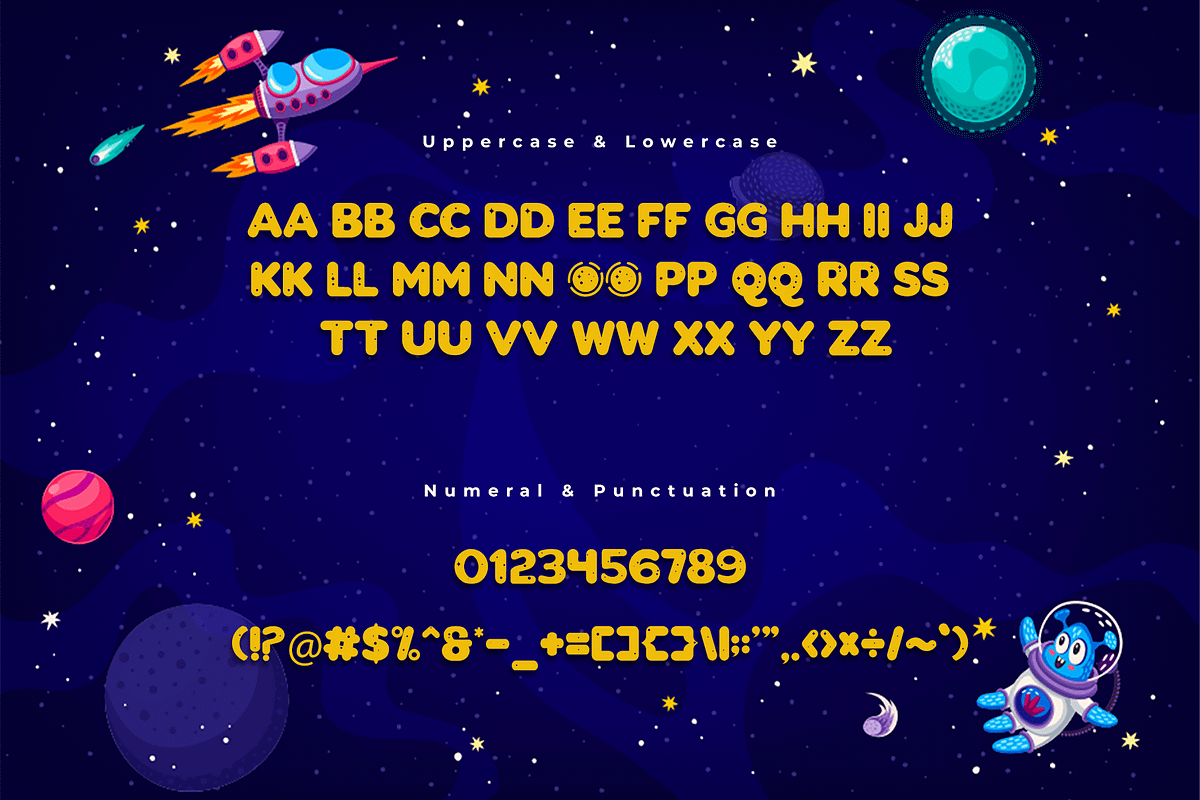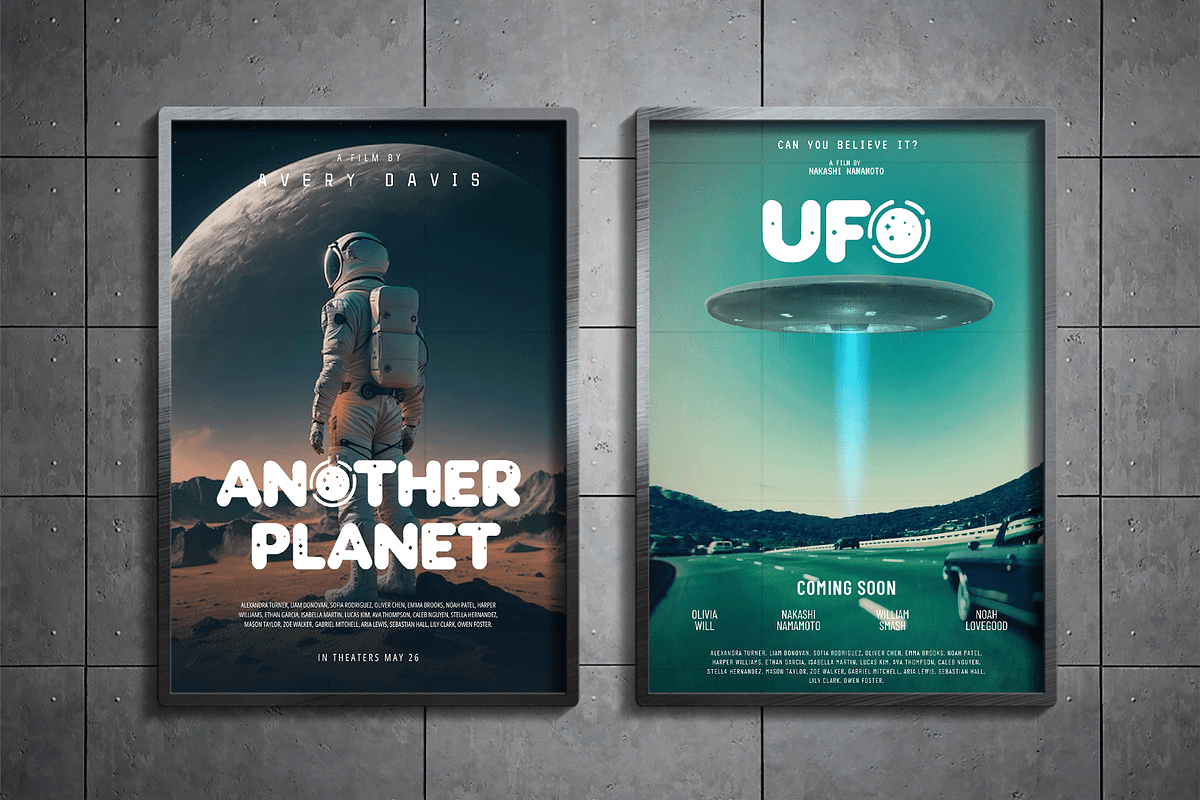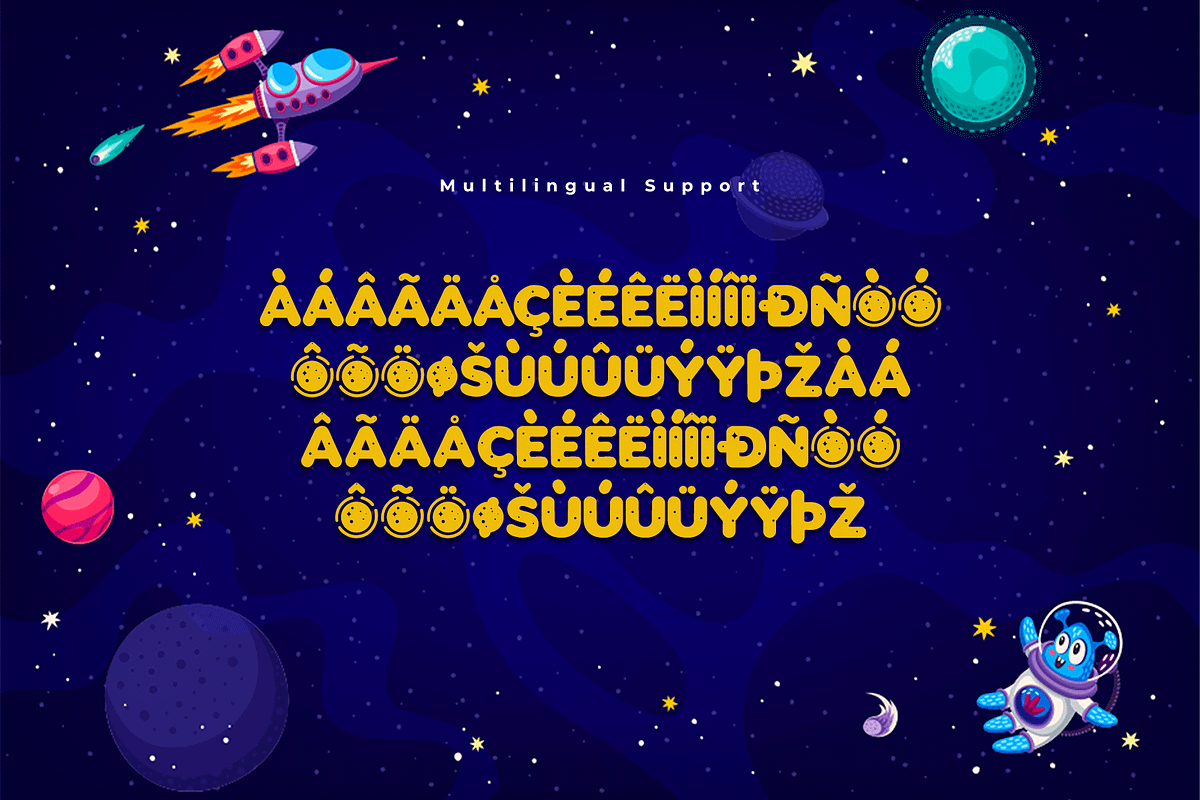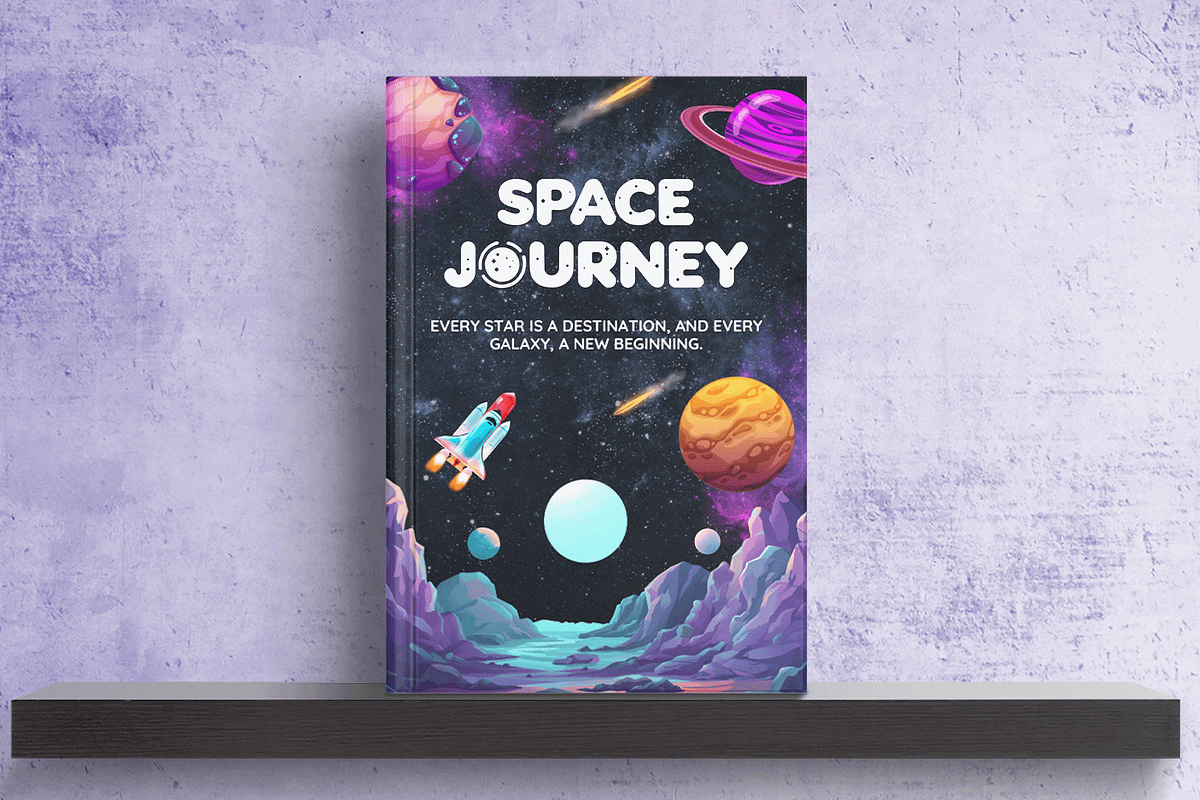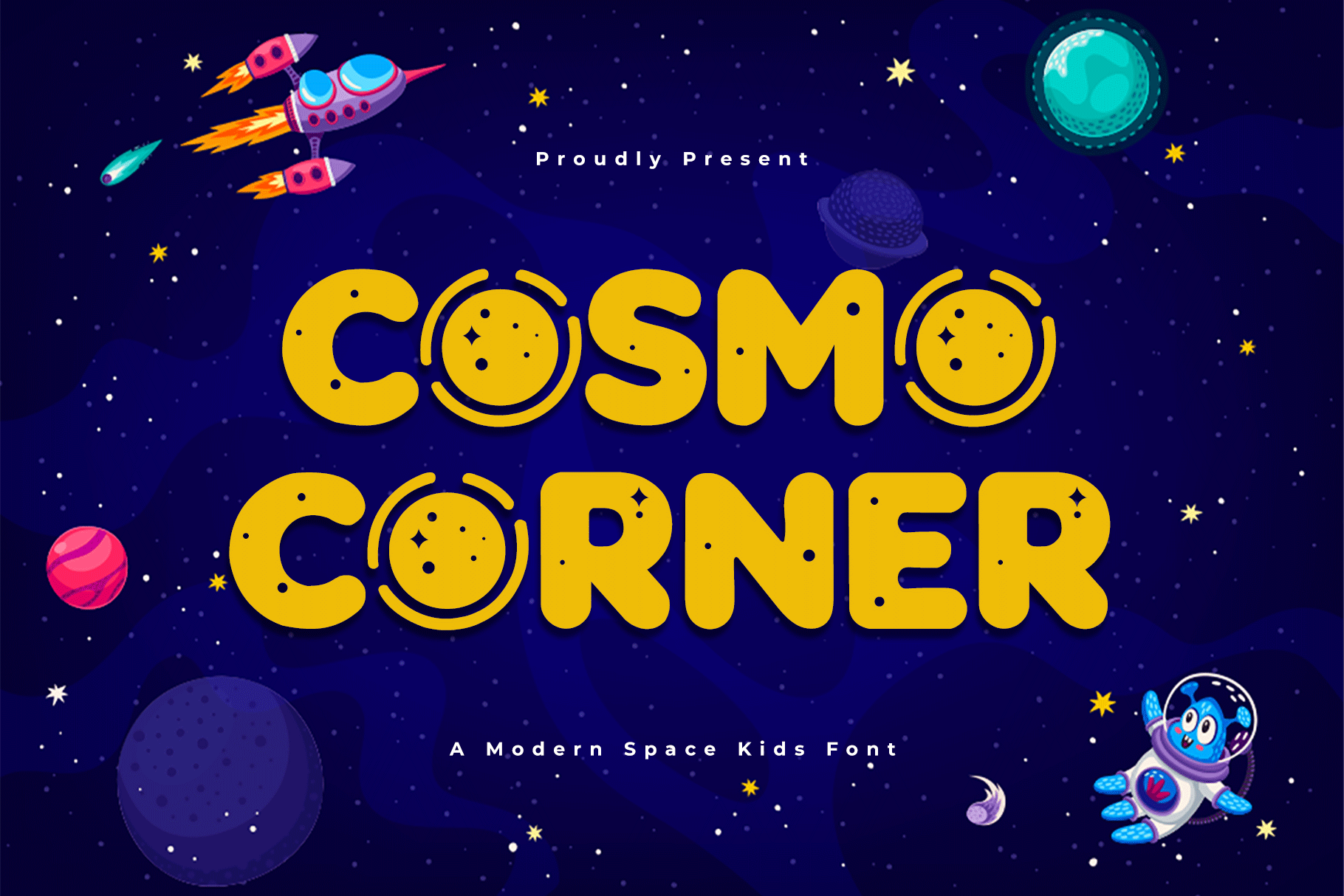
Cosmo Corner-Modern Space Kids Font
Cosmo Corner - A Modern Space Kids Font
Take young imaginations to the stars with Cosmo Corner, a modern space-themed font designed especially for kids. Featuring playful, rounded letters with a celestial touch, this font is perfect for children’s books, space-themed party invitations, educational materials, and creative branding.
Packed with stylistic alternates and multilingual support, Cosmo Corner brings a sense of wonder and adventure to every design. Whether you're creating a whimsical storybook cover or fun learning tools, this font ensures your projects are out of this world!